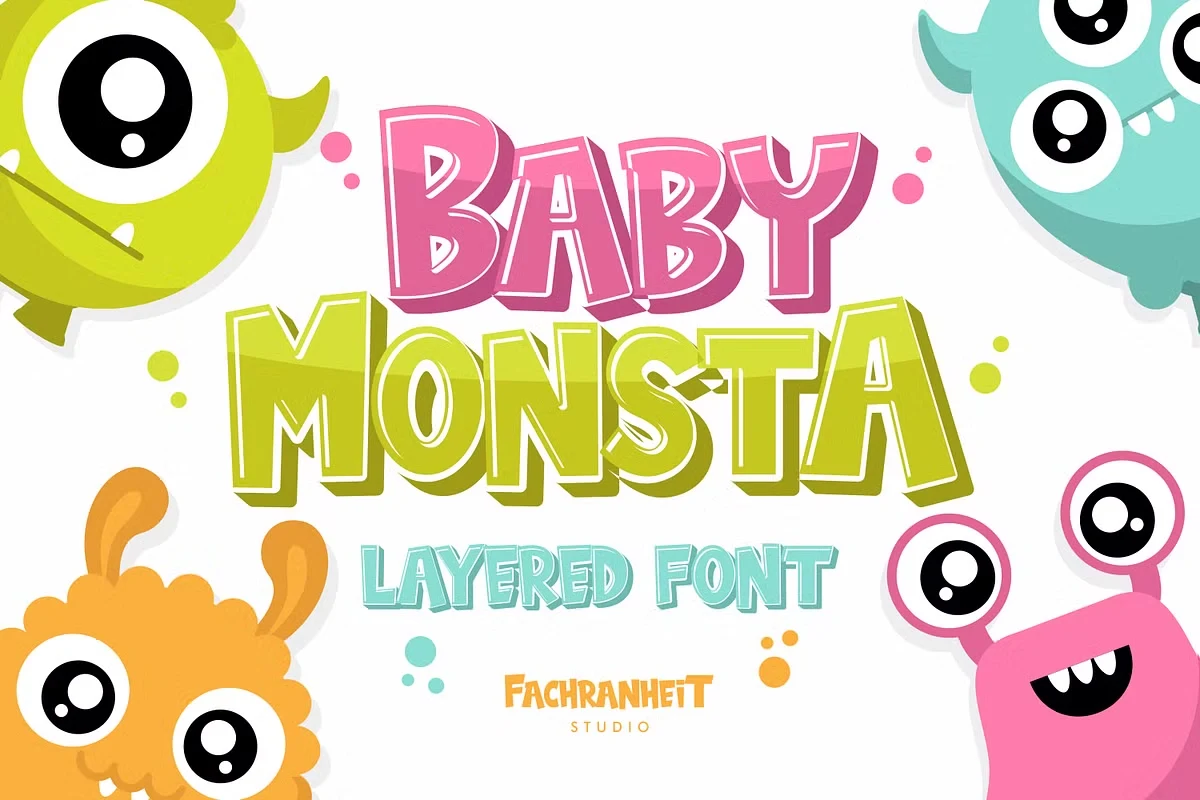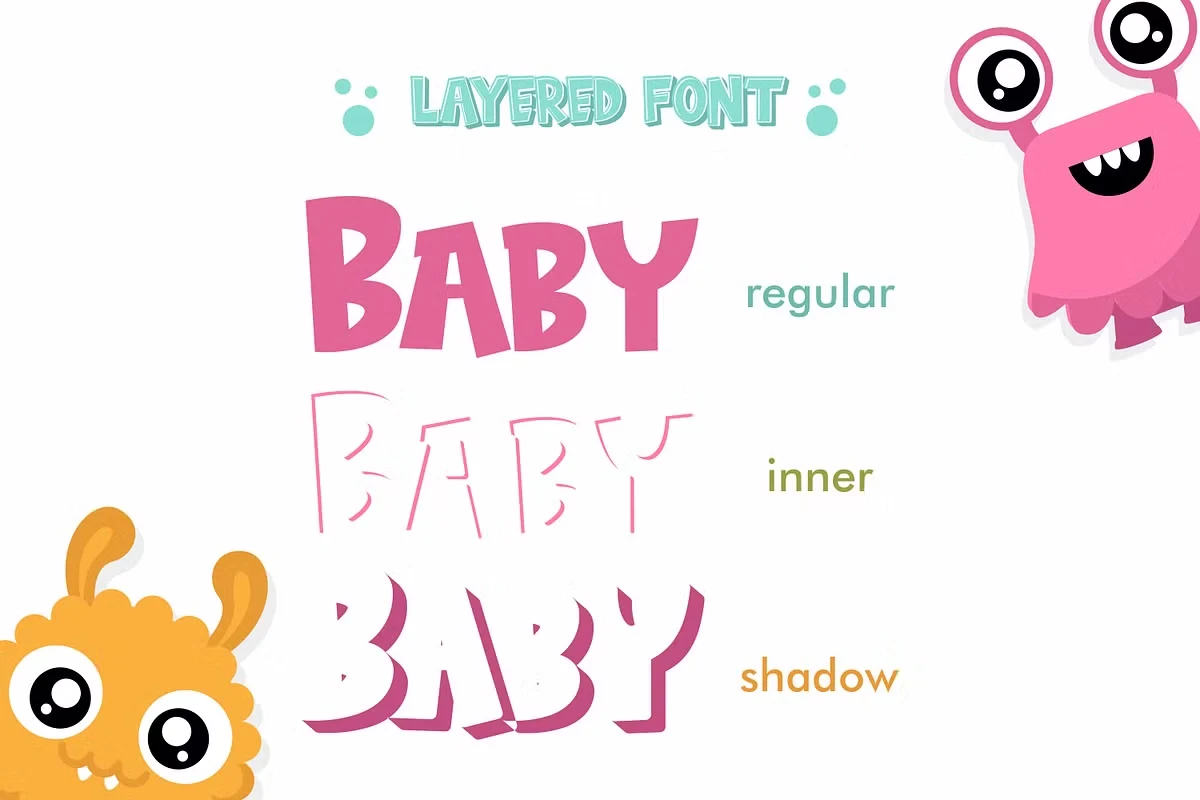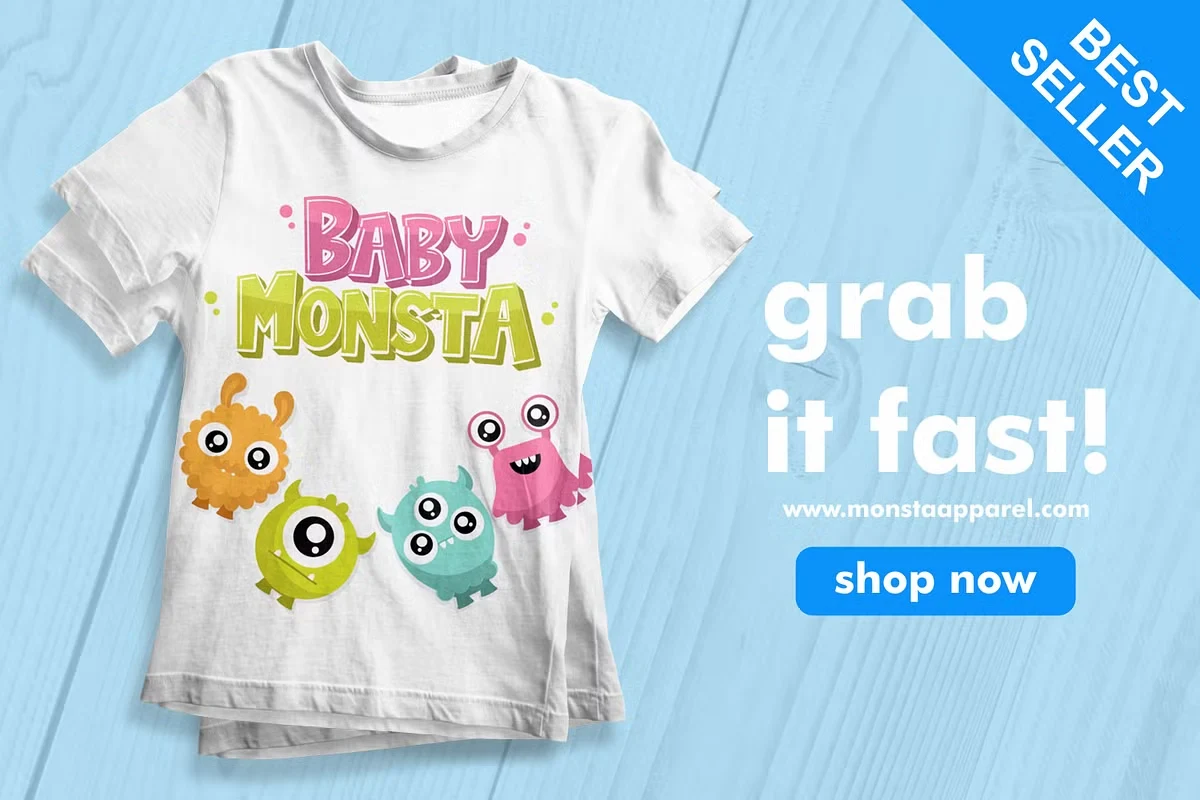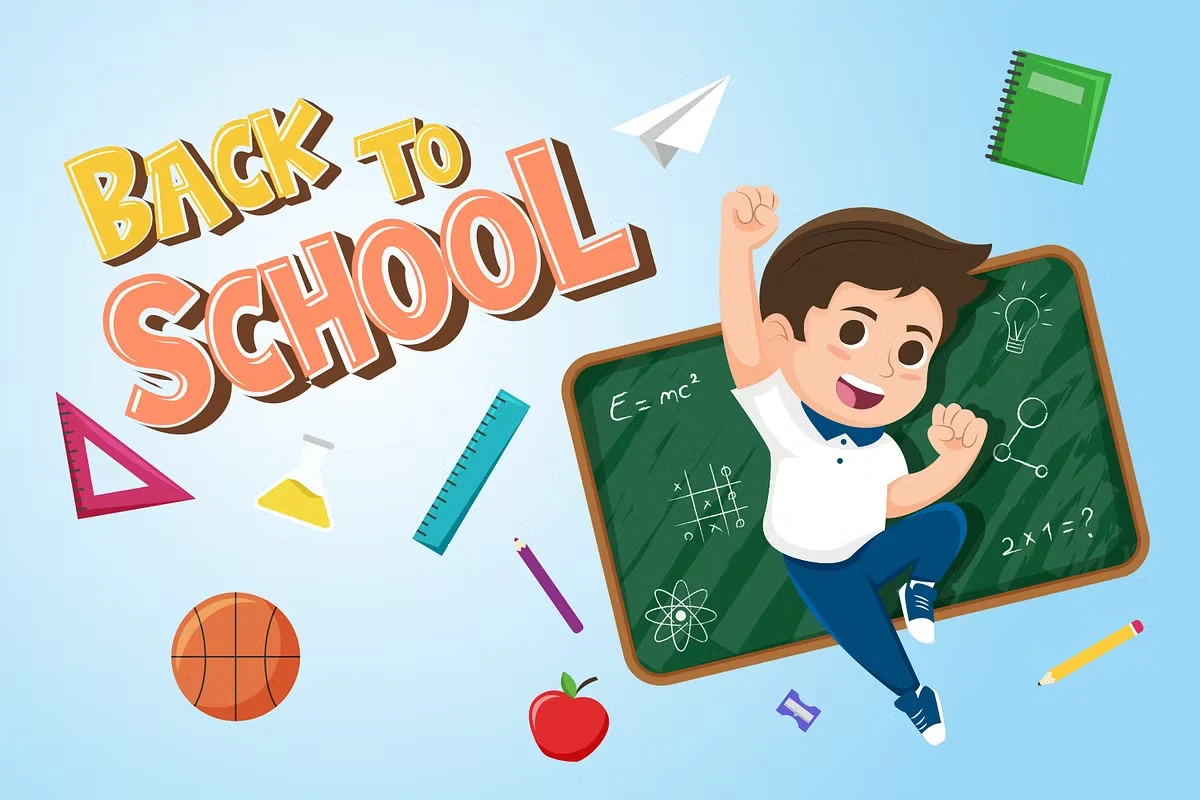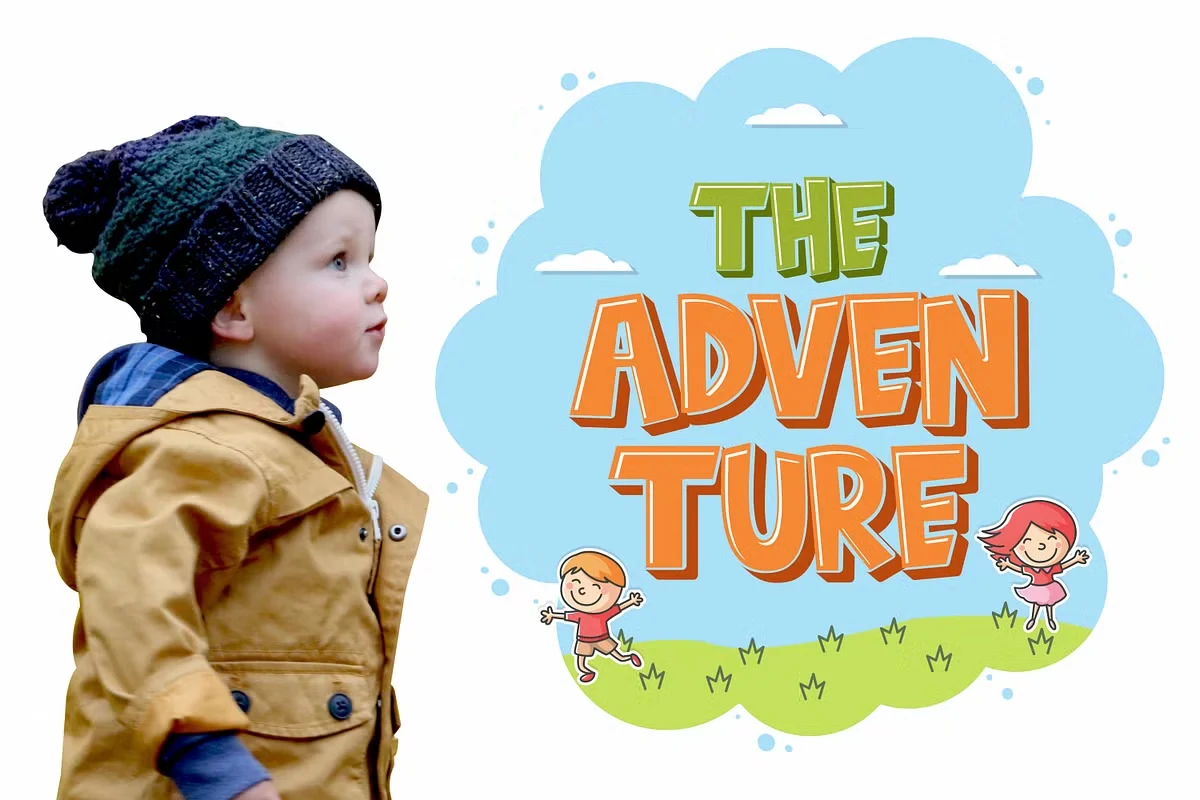
About Baby Monsta Font
I’m a typographer and graphic designer who often experiments with fonts that bring character to branding projects. Recently, I came across the Baby Monsta Font free version while searching for something playful yet bold. Its layered style felt unique compared to other display fonts I’ve used.
I tried it on a t-shirt design and a YouTube channel logo, and the results stood out immediately. The sharp details and layered effect added depth that gave the text a fun and lively vibe. Writing this review allows me to share my real experience and explain how this font can be used effectively.
The Font Type and the Designer
Baby Monsta is a layered display font designed by Fachranheit Studio. The foundry is known for creative, eye-catching typefaces that fit modern design projects. This font family includes multiple layers: Baby Monsta Basic, Baby Monsta Inner, and Baby Monsta Shadow, allowing designers to stack and style text with more dimension.
The font is bold, geometric, and structured with playful curves, making it well-suited for projects targeting kids, creative brands, or anything requiring a fun visual identity. Fachranheit designed Baby Monsta with versatility in mind, creating a font that can move between t-shirt graphics, labels, quotes, and posters without losing its character.
Baby Monsta also supports multilingual accents, numerals, and punctuation through OpenType standard features, making it more than just a decorative font. It’s a complete, PUA-encoded typeface that works across different platforms and design tools.
Features of This Font
What makes Baby Monsta stand out is its layered design system. You can combine the Basic, Inner, and Shadow layers to create unique text effects without extra graphics. This layered approach makes words look dimensional and gives them a 3D-like finish.
The character set is broad, covering uppercase, lowercase, numerals, and punctuation. It also includes multilingual accents, so it’s accessible to designers working on global projects. With PUA encoding, glyphs can be accessed easily in design software, even without advanced OpenType support.
Baby Monsta’s style is playful and bold. Its strokes are thick enough for logos and posters but still detailed enough for smaller text in flyers or labels. When paired with bright colors, it pops off the background, making it ideal for kid-friendly or youth-oriented projects.
Another feature is its adaptability. Baby Monsta works in previews, mockups, and final artwork without losing quality. The layered shadows and bold shapes hold up well in both digital and print formats. Whether you’re creating fun merchandise, display text, or character-rich branding, this font delivers a unique and memorable look.
Baby Monsta is perfect for projects that need a fun, lively aesthetic. Its layered style makes it strong for t-shirt designs, where playful graphics are essential. The same goes for logos and labels, especially for brands targeting kids or creative industries.
Designers can use it on flyers, posters, and YouTube channel graphics, where bold layered fonts create impact. It’s also suitable for quotes and social media posts that need to grab attention quickly. The shadow layers add depth to text, giving it a unique style compared to flat fonts.
Because it’s a display font, Baby Monsta shines in headlines and short text rather than body copy. Use it for greetings, creative artwork, and kid-themed designs where personality matters. With its ability to work across platforms like desktop, online previews, and mockups, it adapts well to different workflows.